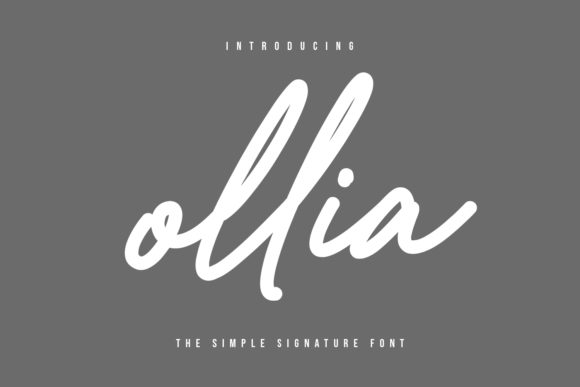
Introducing Ollia Font, a remarkable script font family, meticulously crafted by Maulana Creative, to ignite your creative flair. Embrace the essence of classic typography, artfully blended with a distinctive touch, designed to elevate your design projects to unparalleled heights. Prepare to be mesmerized as Ollia's elegant strokes dance across your screen, capturing attention and leaving an indelible mark.
Step into a realm of creative possibilities with Ollia Font, the ultimate font for spray paint artistry. Allow your imagination to soar as you unleash the potential of this dynamic font, transforming ordinary designs into captivating masterpieces. Whether you're a seasoned artist or embarking on a new creative journey, Ollia Font will be your trusted companion, guiding you towards extraordinary outcomes.
With its inherent charm and versatility, Ollia Font effortlessly adapts to a myriad of design concepts. Envision your words taking flight on letterheads, adding a touch of sophistication to your correspondence. Let your titles radiate with individuality, commanding attention and making a lasting impression. Unleash your creativity on stationery, imbuing your messages with a personal touch that resonates with recipients.
Ollia Font possesses an innate ability to evoke emotions and captivate audiences. Its graceful curves and expressive strokes instill a sense of nostalgia, harkening back to the timeless beauty of classic typography. Simultaneously, its contemporary flair ensures that your designs remain relevant and captivating in the ever-evolving digital landscape.